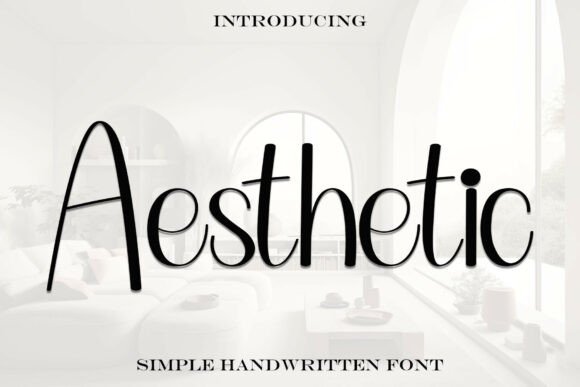
The Aesthetic Font: Elevating Your Designs with Elegance and Class
I’ll never forget the time I was working on a wedding invitation project, and my client asked for a font that exuded elegance and sophistication. I scoured the internet, trying out font after font, but nothing seemed quite right. That was until I stumbled upon the Aesthetic font. With its trendy handwritten style and impeccable form, it was love at first sight! ✨ In this article, I’ll share my experience with the Aesthetic font, its features, and how to make the most of it in your design projects.
- ✨ The Aesthetic font is inspired by timeless classic calligraphy, giving it a sense of sophistication and elegance.
- ✅ Its contemporary atmosphere makes it perfect for modern design projects.
- 💫 The font’s handwritten style adds a touch of warmth and personality to any design.
- 🎨 It’s incredibly versatile and can be used for a wide range of projects, from wedding invitations to branding materials.
While the Aesthetic font is amazing, there are a few things to keep in mind: 🤔
- ⚠️ Some of the more intricate glyphs and swashes may not display properly on certain devices or browsers.
- ⚠️ The font’s elegance can be lost if it’s not paired with the right design elements.
The Designer Inspiration Behind Aesthetic
The Aesthetic font was inspired by the timeless beauty of classic calligraphy. Its designer sought to create a font that would bring a touch of elegance and sophistication to modern designs. With its trendy handwritten style and impeccable form, the Aesthetic font is the perfect choice for designers looking to add a touch of class to their projects.
| What is the Aesthetic font best suited for? | The Aesthetic font is perfect for designs that require a touch of elegance and sophistication, such as wedding invitations, branding materials, and luxury packaging. |
| Is the Aesthetic font difficult to read? | No, the Aesthetic font is designed to be elegant and legible. However, it’s best used in moderation and in conjunction with other design elements. |